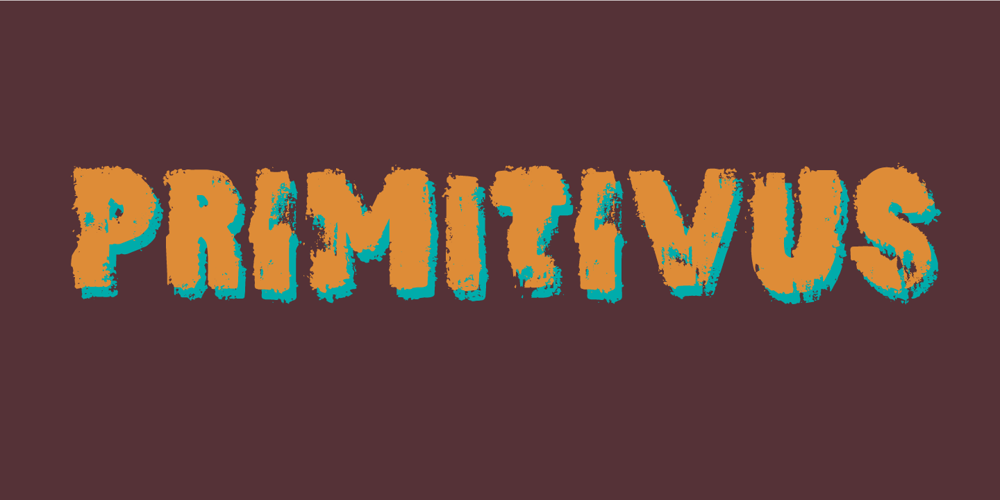
Primitivus Font Family was designed by Jakob Fischer and published by PizzaDude.dk. Primitivus contains 2 styles and family package options. It all started with making of a simple all-caps font. I drew the whole alphabet, numbers all else needed – but something wasn’t quite right…the lettershapes were fine, but quite boring. Then I took a drastic decision: I started all over again … meaning, I printed the whole thing, messed it up using a wet cloth and wrinkled the paper – then scanned it all again, and imported all the graphics yet again. A lot of work, yes – but personally I think it was worth it! But anyway, that’s the story of how Primitivus was made … well, almost, but not quite … but that’s another story!Use Primitivus for anything that needs that special kind of look were handdrawn letters meets grunge! Play around with the 4 different versions of each letter to make your text look even more random and natural!